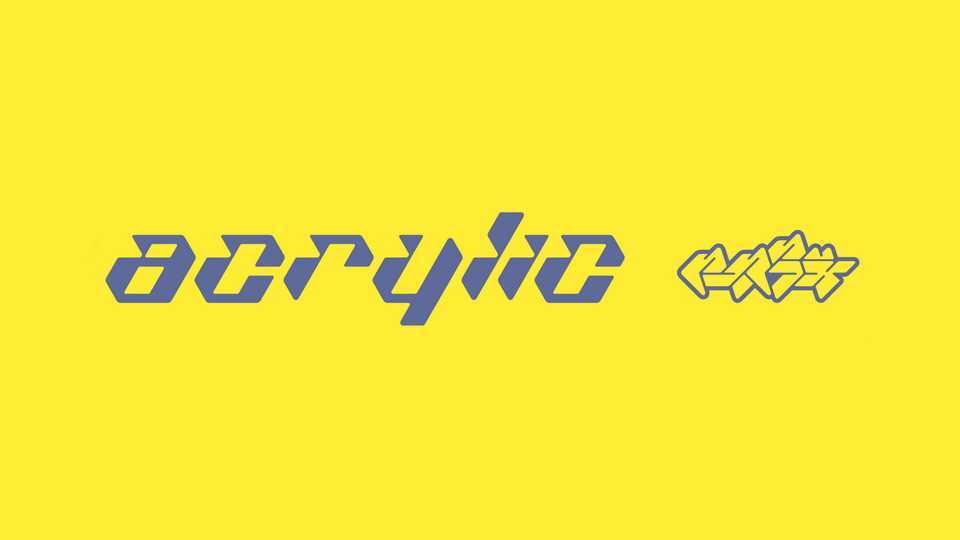
Download Acrylic font, a display typeface based on an axonometric grid and inspired by seven-segment displays. Acrylic font is perfect for projects seeking a cutting-edge and tech-inspired vibe.